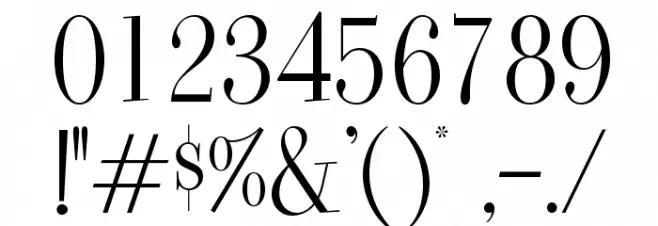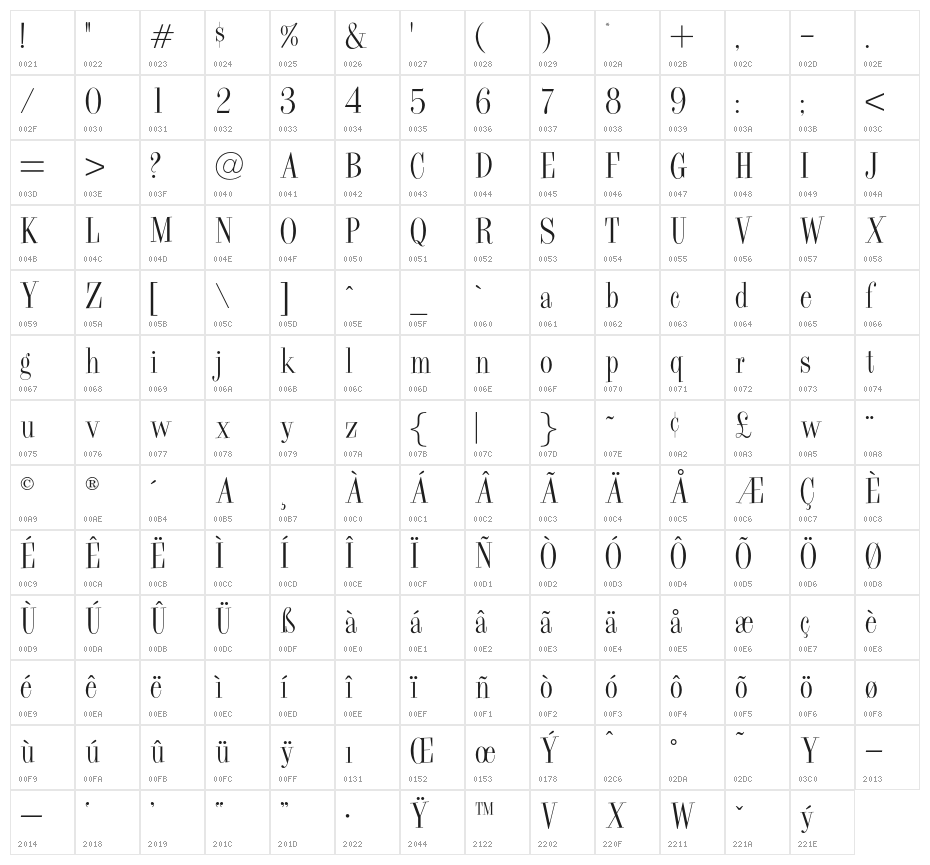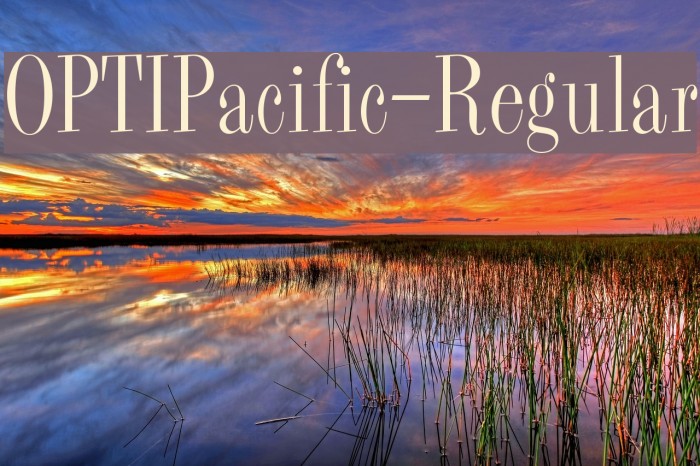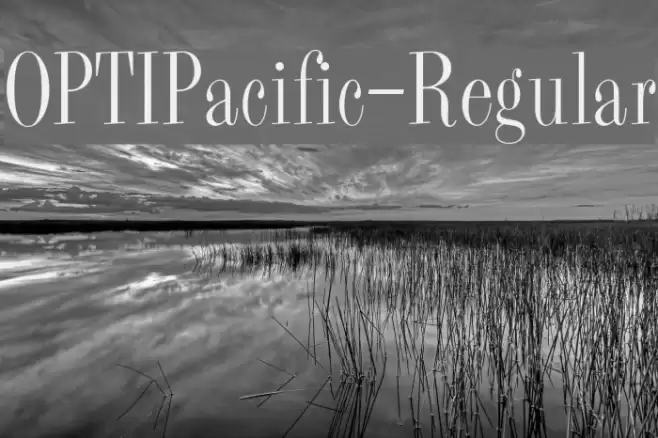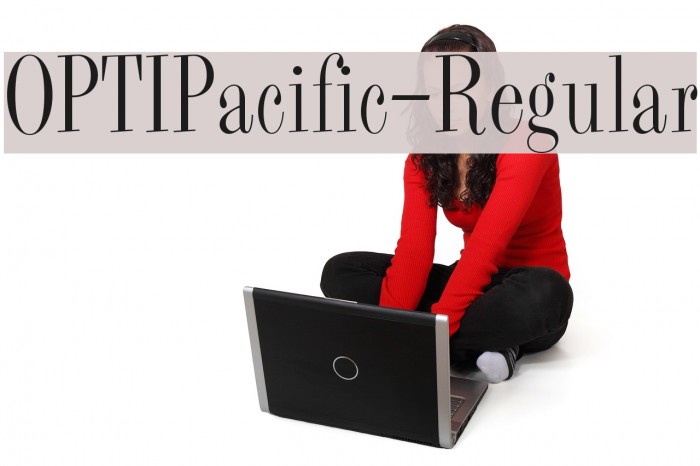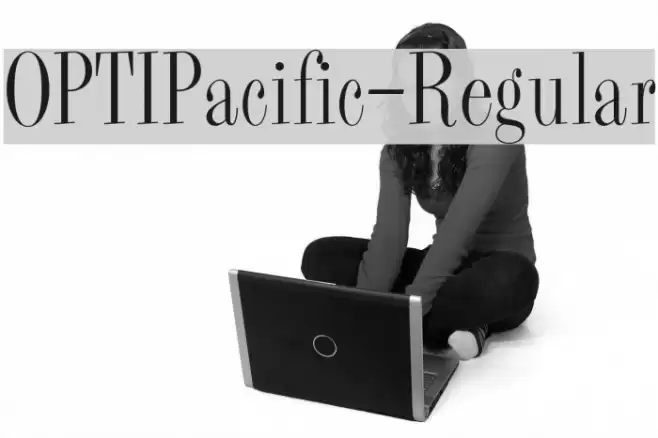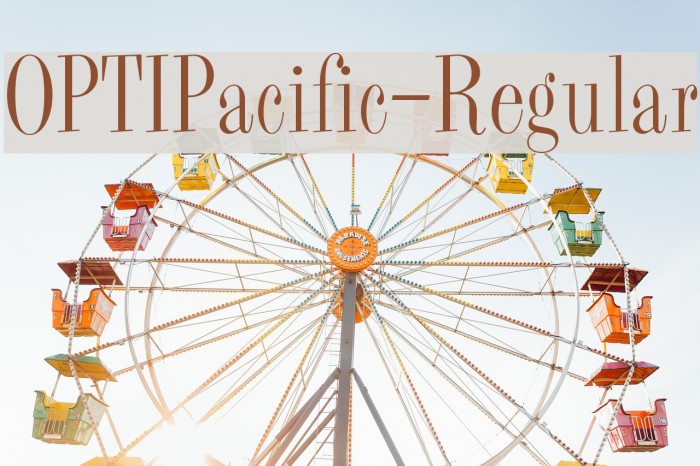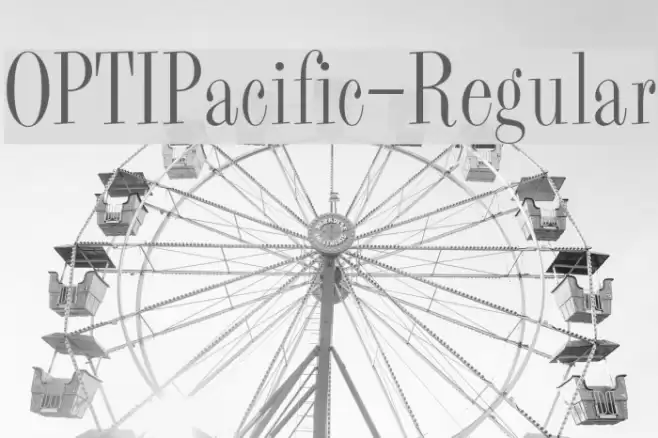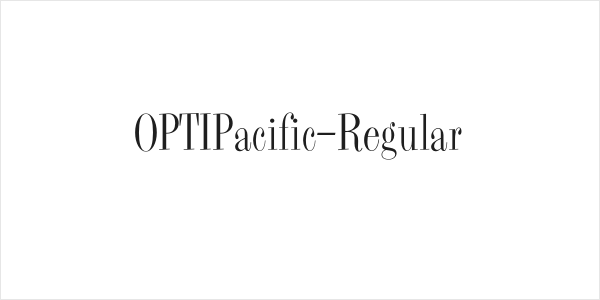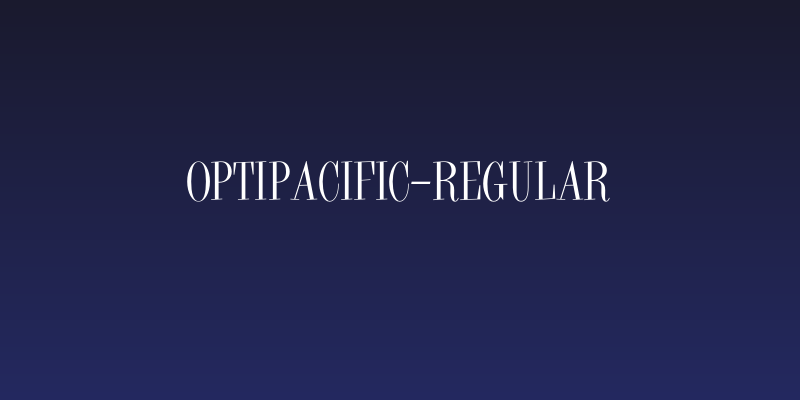
OPTIPacific-Regular Font
OPTIPacific-Regular Description
This font features a classic serif style with elegant, elongated strokes and a refined appearance. The uppercase letters are tall and narrow, giving a sophisticated and formal look. The lowercase letters maintain a consistent style with slightly rounded edges, adding a touch of softness. The numerals are clear and distinct, with a traditional design that complements the overall aesthetic. Special characters are well-integrated, maintaining the font's cohesive appearance. The thin strokes and high contrast between thick and thin lines enhance its readability and visual appeal.